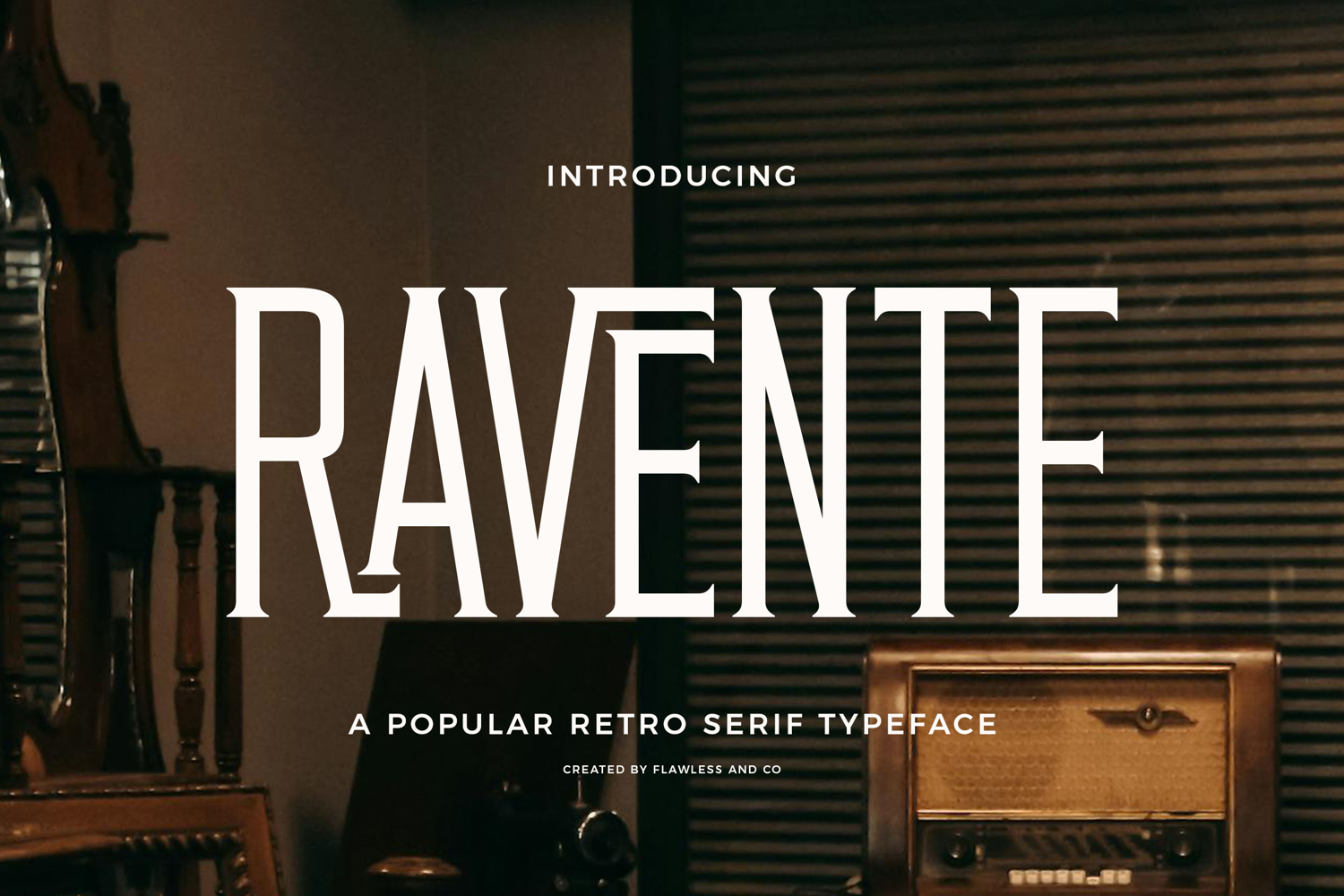
Ravente
RAVENTE
Ravente is a retro serif font that combines vintage charm with a modern twist. Inspired by classic typography, it features bold serifs, smooth curves, and balanced letterforms that bring both elegance and character. Perfect for branding, logos, editorial designs, packaging, and more
There's some connected letters and some alternates that suitable for any graphic designs such as branding materials, print, business cards, logo, poster, t-shirt, photography, quotes, etc.